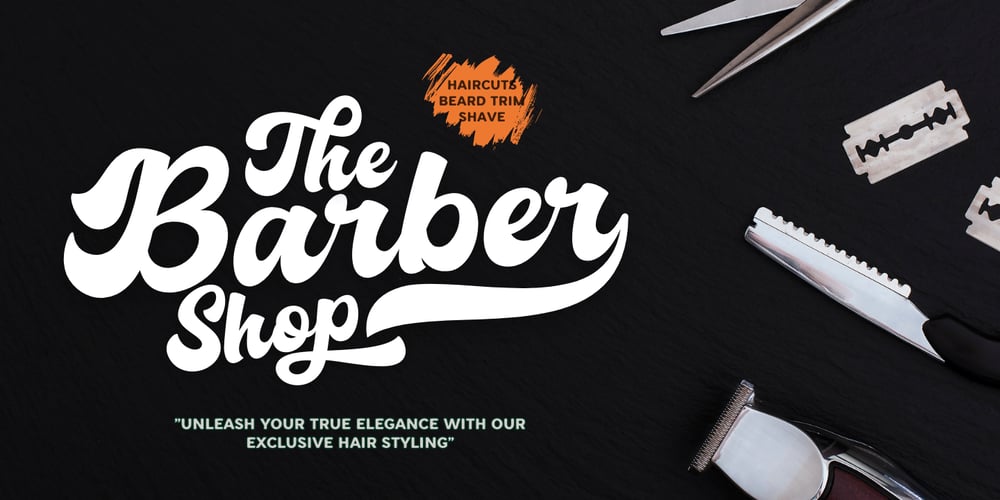
Radhesty
Radhesty font
Radhesty Font Family was designed by Muhamad Yusron Billah and published by Sronstudio. Radhesty contains 1 styles and family package options. Introducing “Radhesty,” a charming retro script font that embodies the essence of nostalgia and vintage aesthetics. This font takes inspiration from the bygone era, evoking a sense of old-school charm and classic elegance. With its distinct letterforms, decorative swashes, and retro-inspired ligatures, “Nahista” adds a touch of authenticity and personality to your designs. Whether you’re working on branding, packaging, posters, or any project that requires a retro touch, this font is a perfect choice. Features: Uppercase and lowercase letters Tons of Uppercase and lowercase alternates Ligatures Multilingual, numerals, and punctuation Thank You!🙂